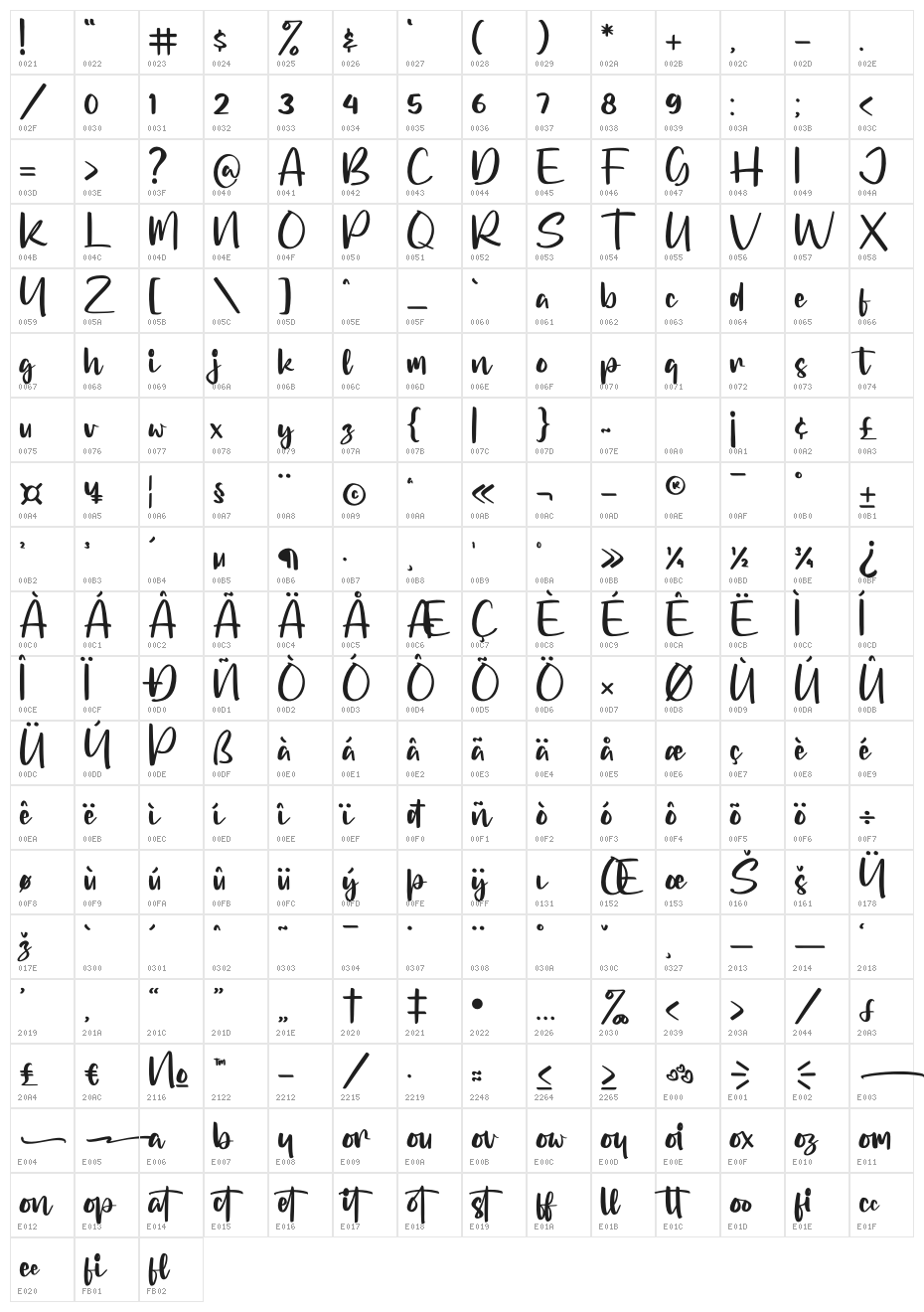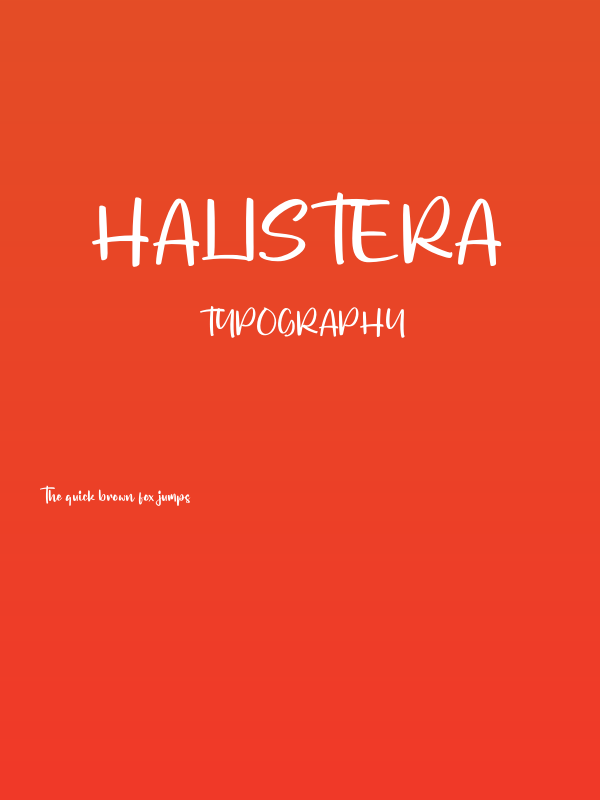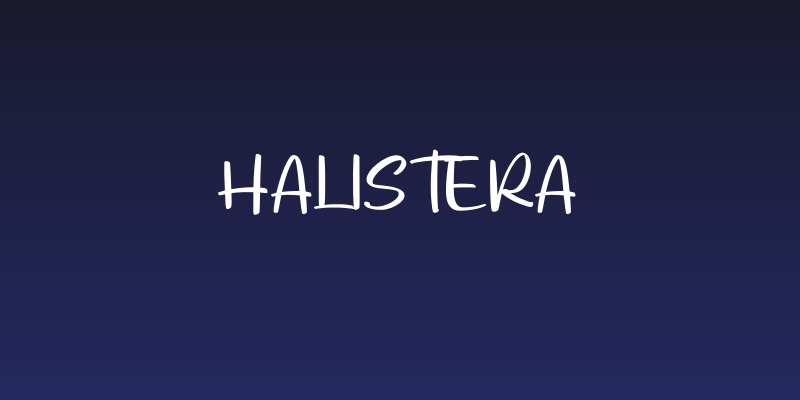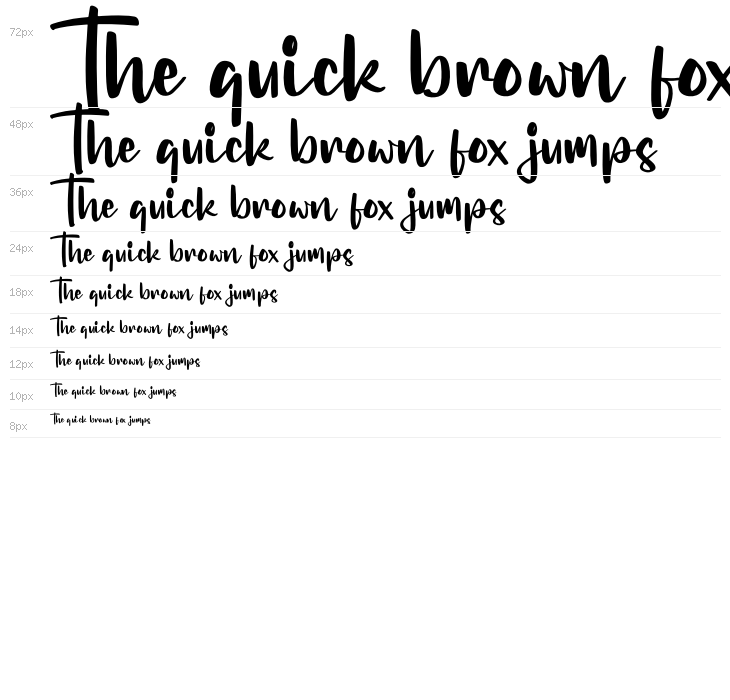
Halistera Font
Halistera Description
A playful, handwritten script font with smooth, rounded strokes and a casual, energetic feel. The uppercase letters are tall and narrow, while the lowercase letters are bold and expressive with varying stroke thickness.
| Overall Style | Decorative, Playful, Modern |
| Use Case | Logos, Headlines, Posters, Social media, Invitations |
| Proposed Projects | Greeting cards, invitations, social media graphics, branding, posters. |